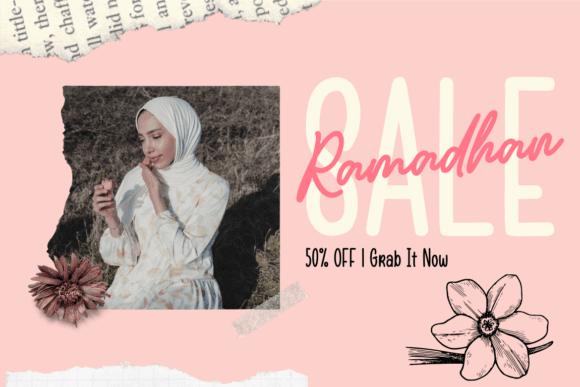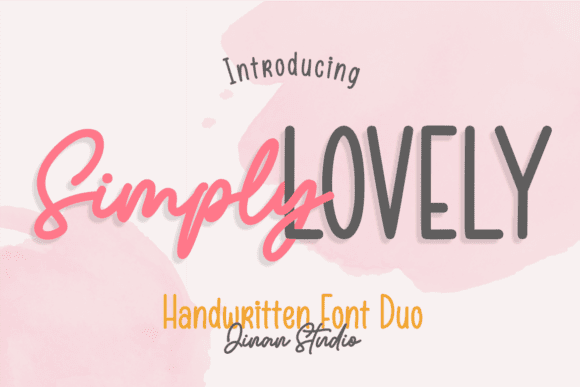
Simply Lovely Font Duo
Simply Lovely Font Duo is a stylish and delicate font duo (script and sans serif) suitable for a wide spectrum of applications. From greeting cards to headlines, this font will guarantee a romantic touch to each of your creations!